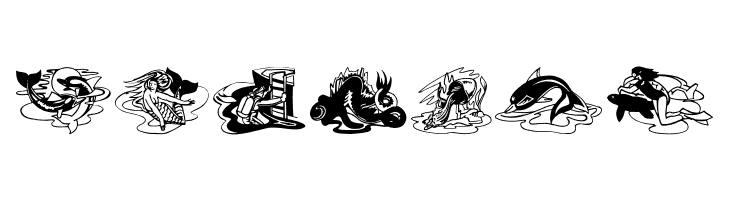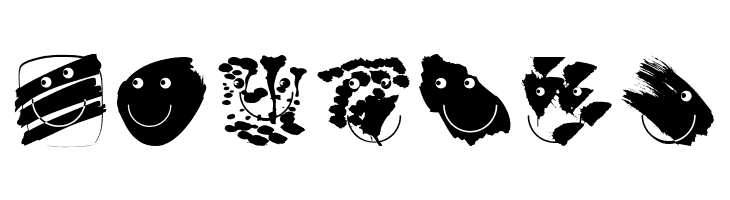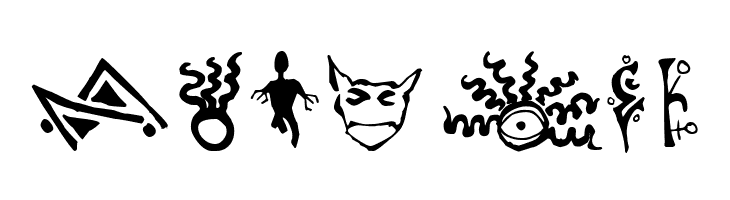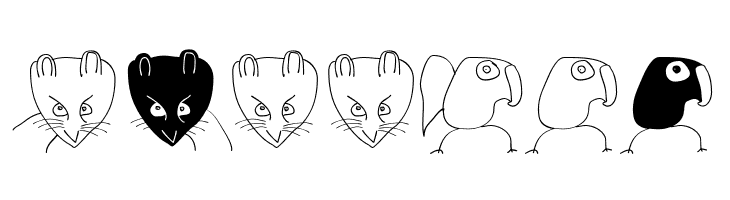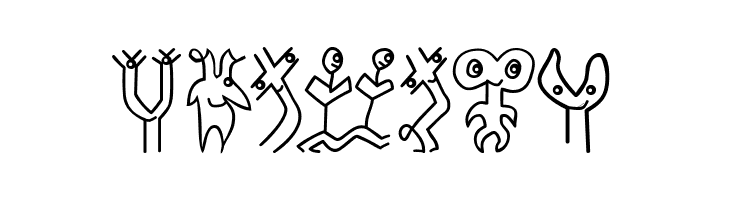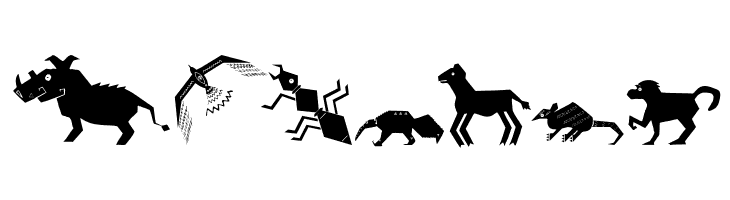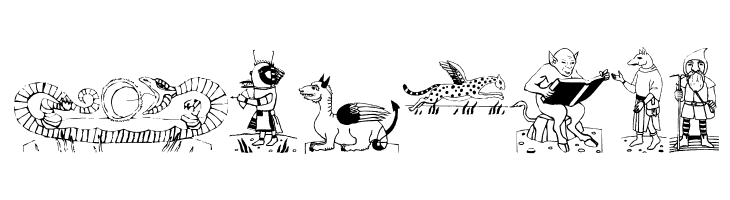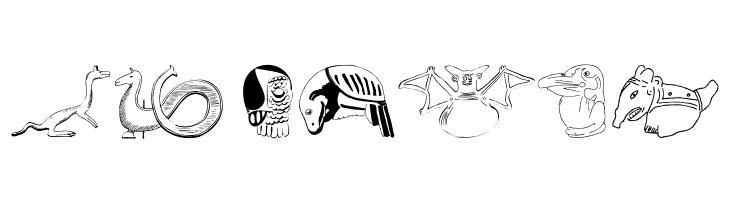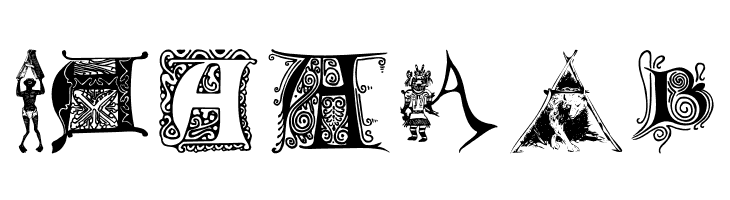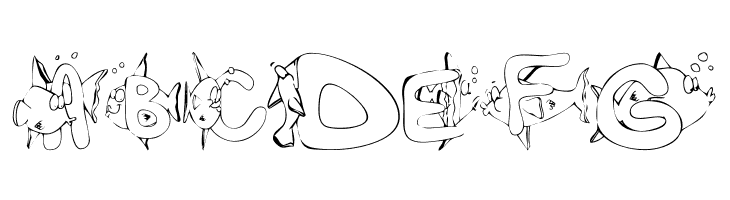
Intricate marine-themed illustrations replace standard characters.
A whimsical, creature-inspired decorative font with playful and abstract shapes.
A whimsical and decorative set of imaginative character illustrations.
A playful, alien-themed decorative font with unique character designs.
An artistic font of abstract, continuous line drawings resembling whimsical characters.
A decorative collection of fantastical creature illustrations with intricate details.
A whimsical and decorative design featuring playful bird-like characters.
A decorative dingbat font with imaginative cartoon characters.
A whimsical and decorative font with abstract, mythical shapes and intricate details.
A whimsical and artistic collection of decorative characters and illustrations.
A whimsical, creature-inspired decorative font with bold, artistic characters.
Decorative dingbat font with swimming and nautical illustrations.
A decorative font featuring detailed fantasy-themed illustrations.
A collection of abstract, playful icons with whimsical designs.
A decorative font using animal and insect silhouettes for each character.
Ornate, illustrative font with mythological figures as glyphs.
A collection of stylized animal and mythical creature silhouettes with tribal and indigenous art influences.
Whimsical, illustrated font with mythological and ancient motifs.
A decorative font of abstract, cartoonish symbols with bold contrast.
A playful, decorative font featuring abstract animal-like symbols.
An ornate and decorative font with intricate illustrations in each letter.
A whimsical, decorative font with playful illustrations in each character.
A whimsical collection of sea-themed decorative elements with intricate designs.
A collection of medieval-themed dingbats with intricate designs.